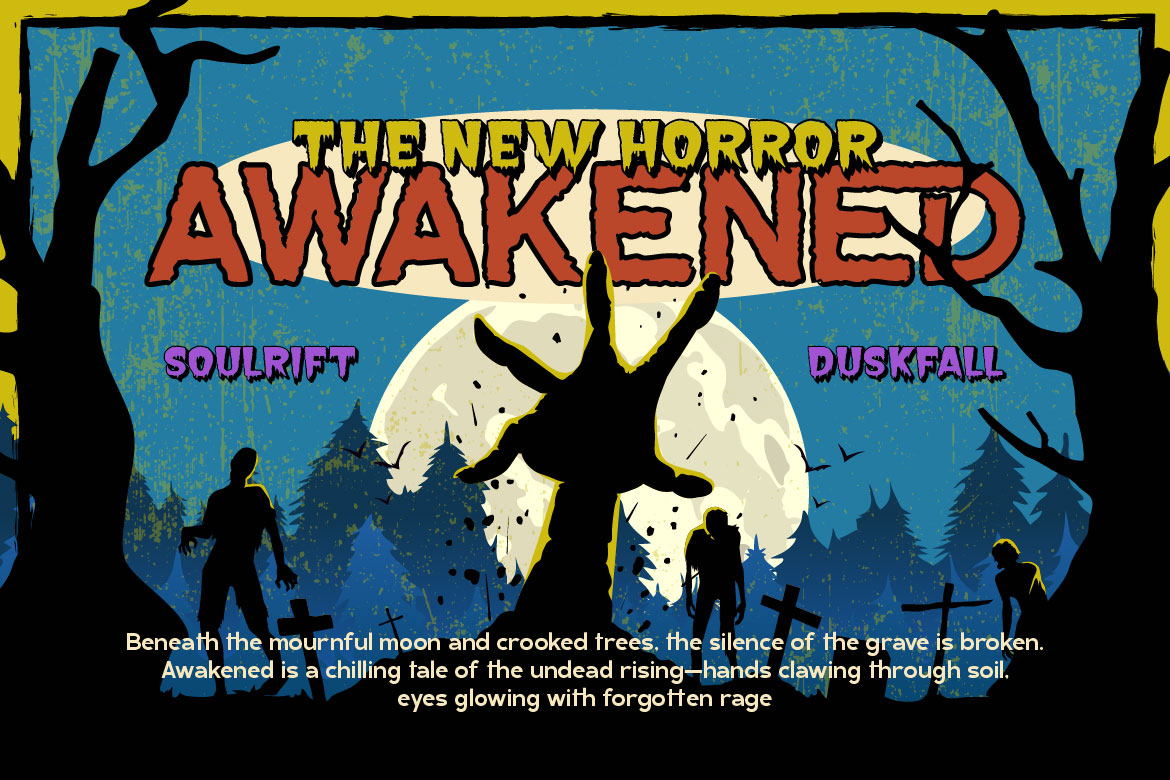
Celebrate the Cozy Autumn Vibes: Best Fonts for Fall, Halloween and Thanksgiving Designs
As the air turns crisp and the leaves start to fall, there’s something magical about the autumn season, cozy sweaters, pumpkin spice everything, and of course… a bunch of festive celebrations! From spooky Halloween nights to heartwarming Thanksgiving dinners, autumn gives designers the perfect excuse to play with creative and seasonal vibes in their work.
Whether you’re designing posters, social media posts, or product packaging, choosing the right font can completely set the mood. So here’s a list of fun and stylish fonts to help you celebrate this colorful season in style!
Halloween — Spooky but Fun!
Halloween is the ultimate playground for creative design — it’s bold, weird, and full of personality. Think mysterious vibes, dripping letters, or playful hand-drawn scripts.
Try fonts that bring that haunted charm to life!
Font Recommendation:
👉 Deathgrin — a bold and creepy horror typeface designed to bring chills and thrills to your creative projects. Bonus spooky illustration included!
👉 Terrify — a horror-themed font designed to bring eerie, mysterious, and gothic vibes into your designs.
👉 Witches Diary — a hauntingly beautiful display font perfect for all your Halloween projects! With its tall, twisted serifs and mystical charm, this font brings out the eerie yet playful side of every design.
Thanksgiving — Warm and Rustic Feels
Thanksgiving is all about warmth, gratitude, and cozy aesthetics. Fonts for this celebration should feel heartfelt — with script or serif styles that bring comfort and sincerity.
Font Recommendation:
👉 Stovina —  a stylish duo font that combines clean Sans Serif with a flowing Script, creating the perfect balance of professionalism and charm
👉 Nufaria — a beautiful font duo that brings together the charm of a retro script with the clarity of a clean sans serif.
Black Friday — Bold and Eye-Catching
Now we shift from cozy to chaos (in the best way possible 😆). Black Friday is fast, exciting, and loud — your fonts should grab attention in seconds.
Font Recommendation:
👉 Swodisht— a handwritten brush font with a fresh and retro-friendly vibe.
👉 Dushick— a bold and rugged display font that captures the spirit of the great outdoors.
Cyber Monday — Sleek and Futuristic
After all that shopping chaos, Cyber Monday brings the techy twist. Your fonts should feel digital, clean, and modern.
Font Recommendation:
👉 Groonex  — a modern display sans built with logo design in mind.
👉 Coftein  — a modern sans serif font with a clean, attractive look and thoughtful design.
Early Christmas — Elegant and Festive
Even though it’s still autumn, the Christmas spirit starts peeking around the corner. Designers often prep early, so it’s a great time to experiment with cheerful or elegant typefaces.
Font Recommendation:
👉 Charoly Signature — a harmonious blend of classic elegant serif with charm of script.
👉 Clasedus — a harmonious blend of classic elegant serif with charm of script.
Autumn is more than just a season, it’s a mood. It’s that perfect time to explore different aesthetics, from spooky to heartwarming to full on festive. So grab your favorite fonts, light a candle, and let the creativity flow